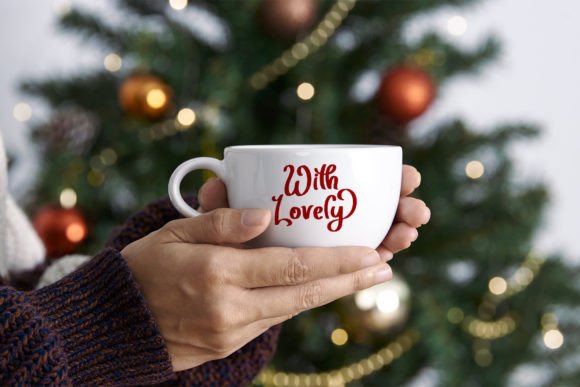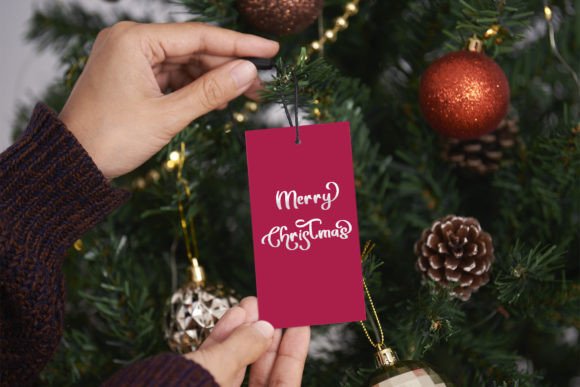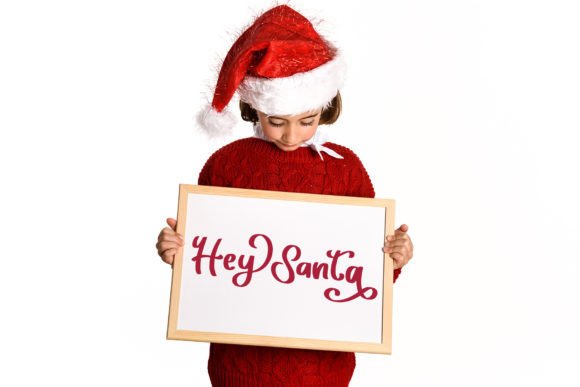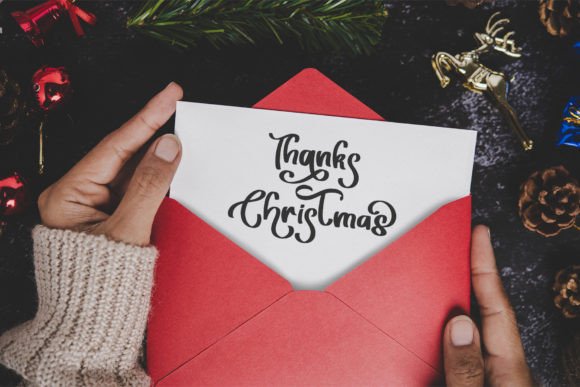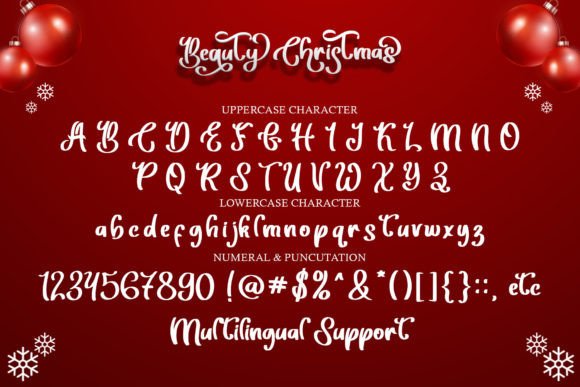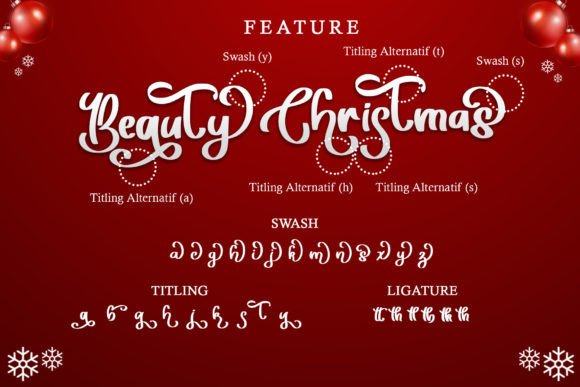
The Magic of Beauty Christmas Font: A Designer’s Delight
Ah, the holiday season is upon us, and as designers, we’re often tasked with creating festive and fun projects that capture the essence of Christmas. I recall a particularly stressful design moment when I was working on a client’s Christmas card project, and I just couldn’t find the right font to match the merry and bright vibe I was going for. That’s when I stumbled upon the Beauty Christmas Font – a sweet and festive handwritten script font that instantly elevated my design game!
So, what makes the Beauty Christmas Font so special? Let’s dive into the good stuff and a few minor quirks to keep in mind.
- ✨ Festive and Fun: This font screams Christmas magic, with its curly, swirly, and whimsical design that’s perfect for holiday projects.
- ✅ PUA Encoded: The font is PUA encoded, making it easy to access all the glyphs and ligatures, which is a huge plus for designers who want to get creative.
- 💫 Versatile: Despite being a Christmas-themed font, Beauty Christmas can be used for a wide range of projects, from holiday cards to party invitations and more.
- ⚠️ Legibility: At very small font sizes, some of the intricate details and swashes might get lost, so be mindful of the size you’re using.
- 🤔 Pairing: While Beauty Christmas is stunning on its own, it might require some experimentation to find the perfect pairing font for your project.
The Story Behind Beauty Christmas Font
While the actual designer behind Beauty Christmas Font remains a mystery, it’s clear that they drew inspiration from traditional holiday scripts and infused them with a modern, whimsical twist. The result is a font that’s both nostalgic and fresh – perfect for capturing the magic of the holiday season.
Q: What makes Beauty Christmas Font so special for designers?
A: Beauty Christmas Font stands out due to its festive design, PUA encoding for easy glyph access, and versatility for various projects.
Q: Is Beauty Christmas Font difficult to pair with other fonts?
A: While Beauty Christmas Font is stunning on its own, finding the perfect pairing font might require some experimentation to balance the design.